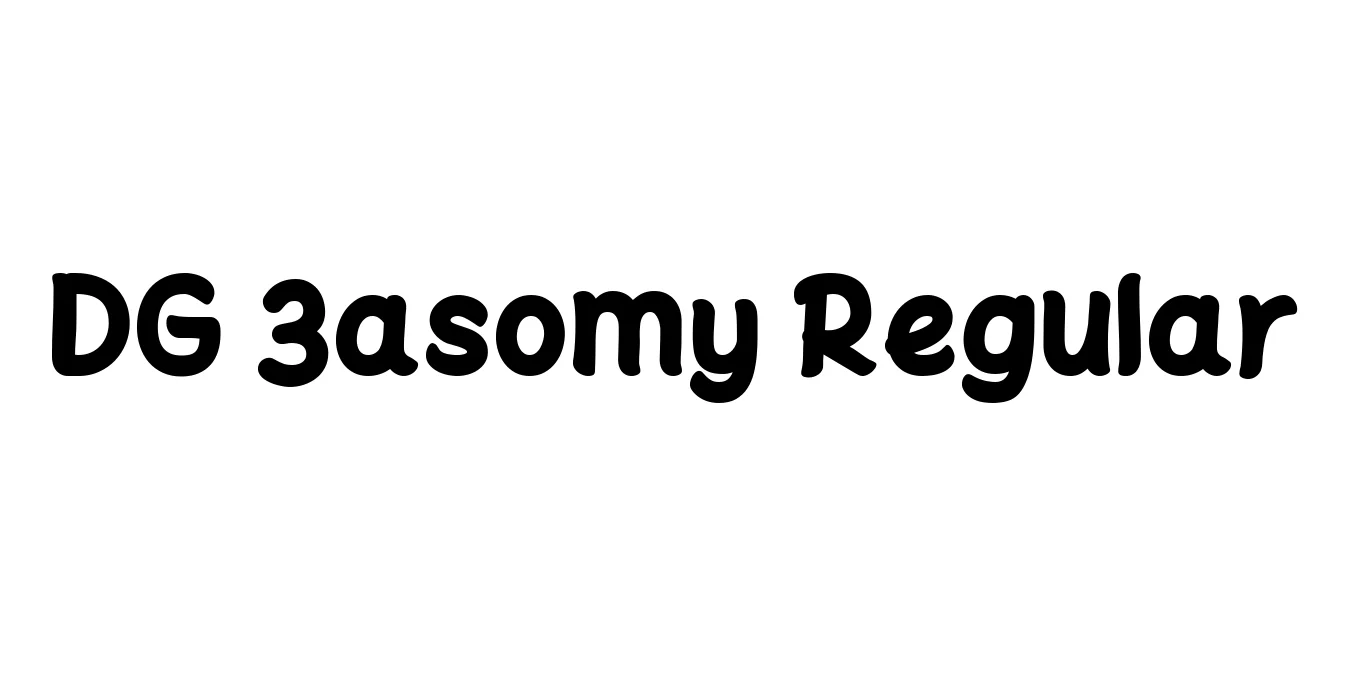
DG 3asomy Regular
Designed by Ali Al-Ali (DG Fonts)
| Font Name | DG 3asomy |
| Category | Arabic Display |
| Designer | Ali Al-Ali (DG Fonts) |
DG 3asomy Regular is a contemporary Arabic display font that masterfully bridges the gap between traditional calligraphic principles and modern geometric design. It features a bold, sturdy structure with fluid stroke connections that give the typeface a unique personality, making it ideal for high-impact visual communication. The font is specifically engineered to provide clarity and aesthetic appeal in various professional design contexts.
Designed for versatility, DG 3asomy Regular is frequently utilized in the creative industry for branding and advertising across the Middle East. Its balanced proportions and distinctive character shapes ensure that it remains legible in both digital displays and large-scale print formats, such as billboards and event signage, allowing designers to create compelling Arabic typography with ease.
DG 3asomy Regular Best Uses
Creating unique and memorable Arabic brand identities.
Effective for high-impact headlines on posters and billboards.
Designing eye-catching graphics for platforms like Instagram and Facebook.
Perfect for bold magazine titles and modern book covers.